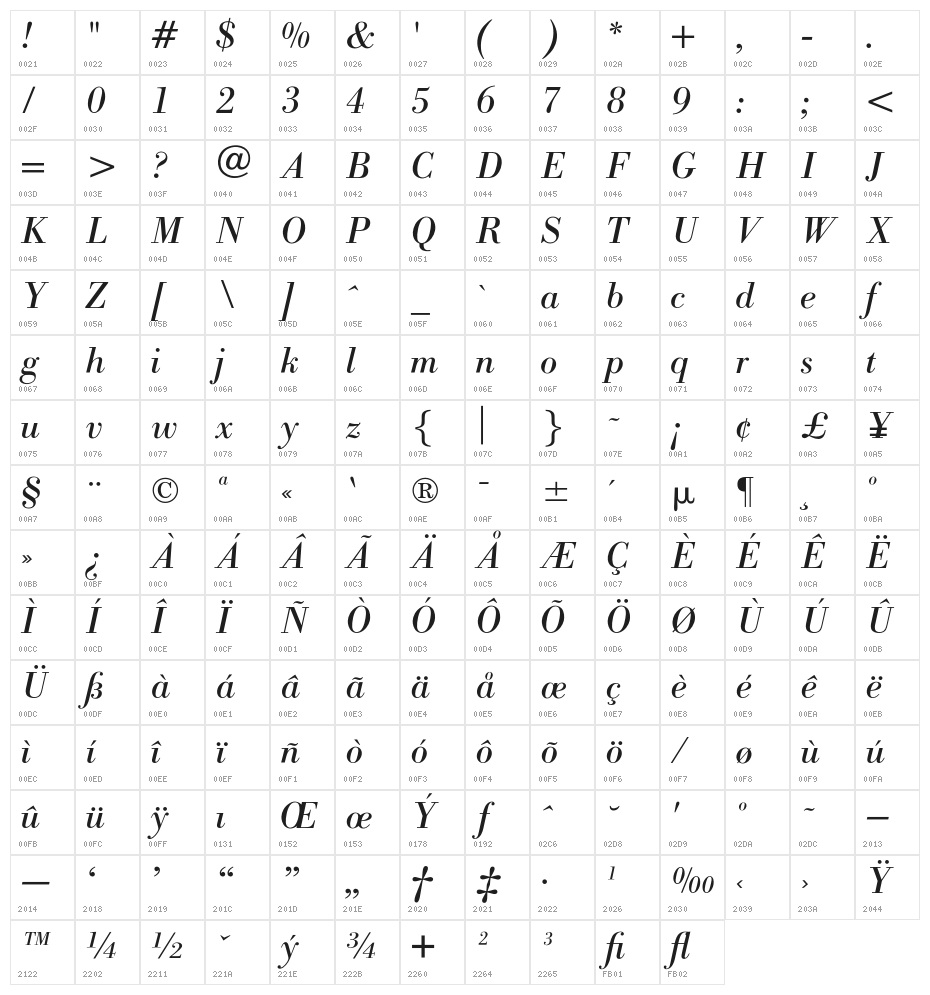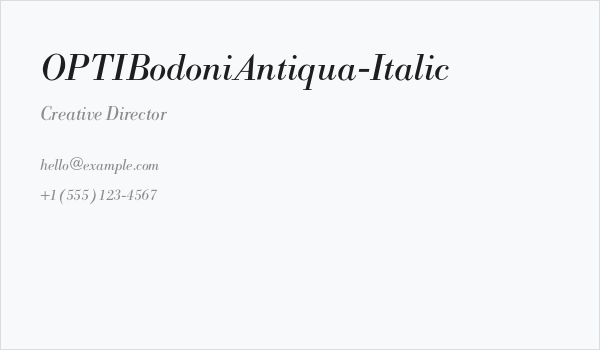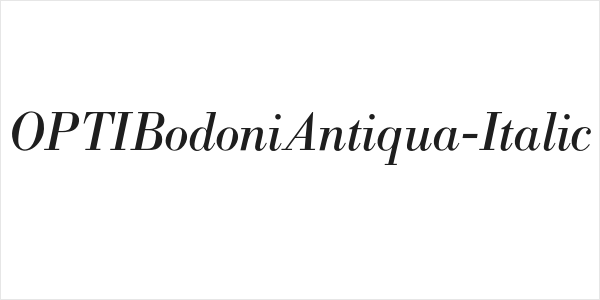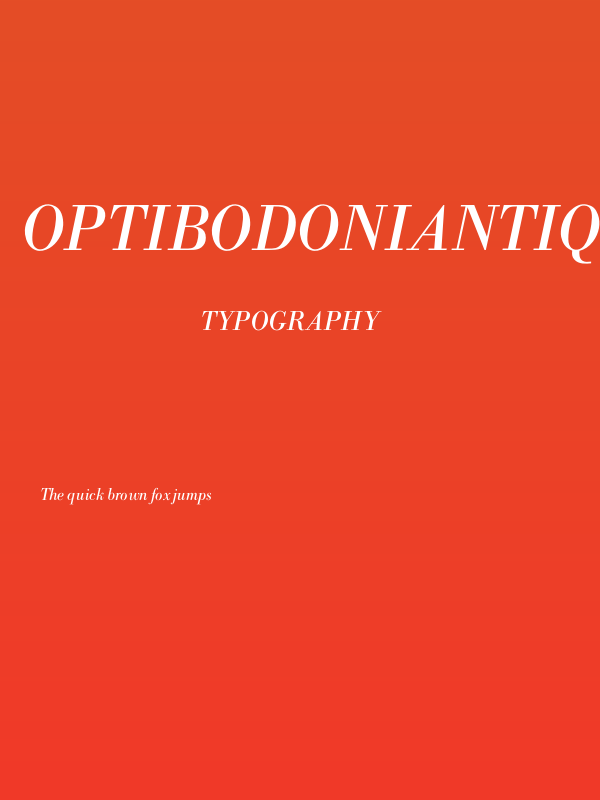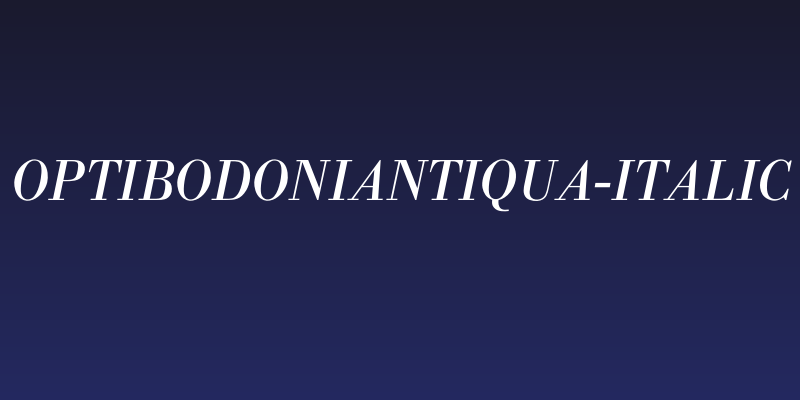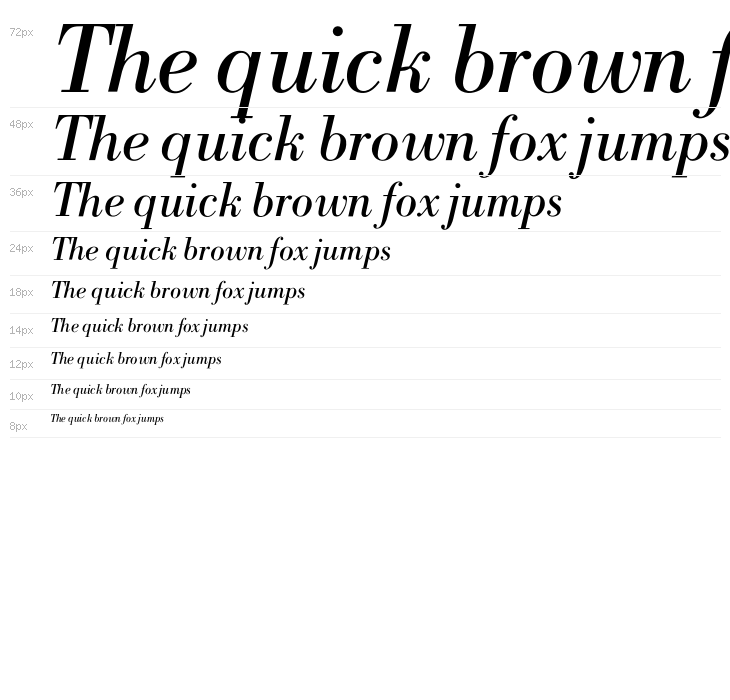
OPTIBodoniAntiqua-Italic Font
OPTIBodoniAntiqua-Italic Description
This elegant serif typeface features a classic and sophisticated design with a distinct italic slant. The characters exhibit high contrast between thick and thin strokes, enhancing readability and adding a touch of refinement. The uppercase letters are tall and stately, while the lowercase letters maintain a graceful flow. The numerals are proportionate and align well with the overall style, making them suitable for both text and display purposes. The special characters are designed with the same attention to detail, ensuring consistency throughout the font.